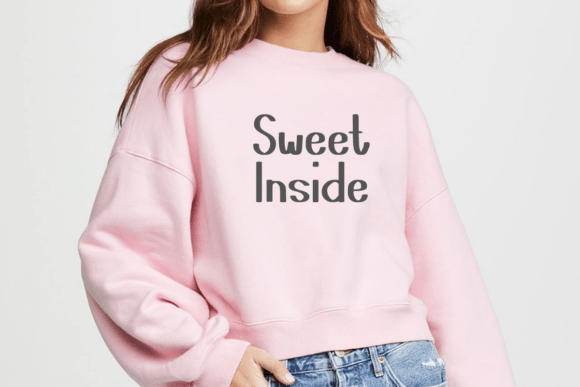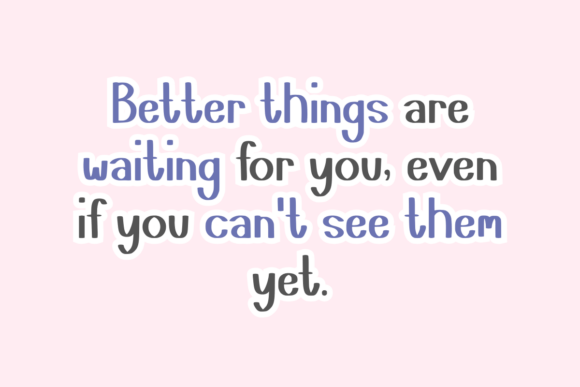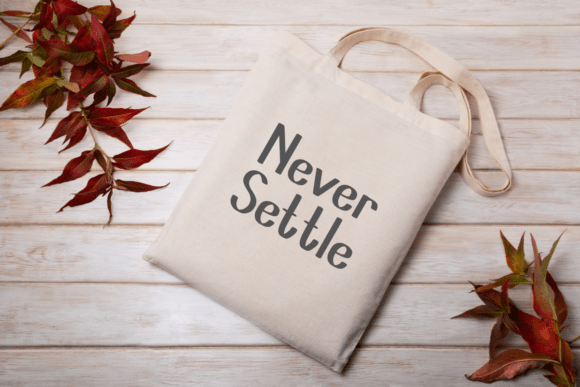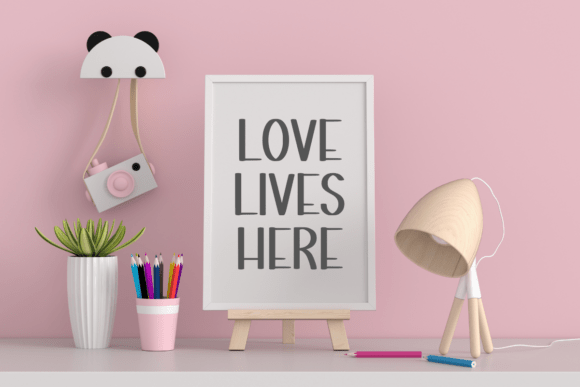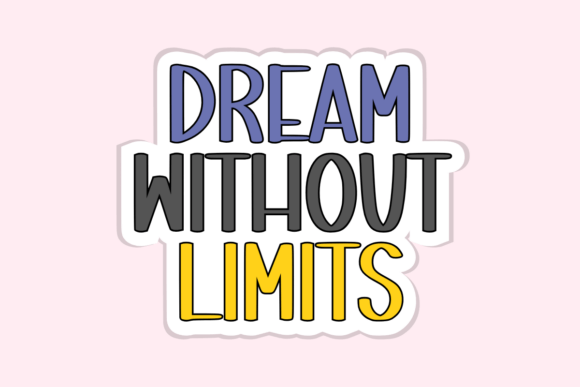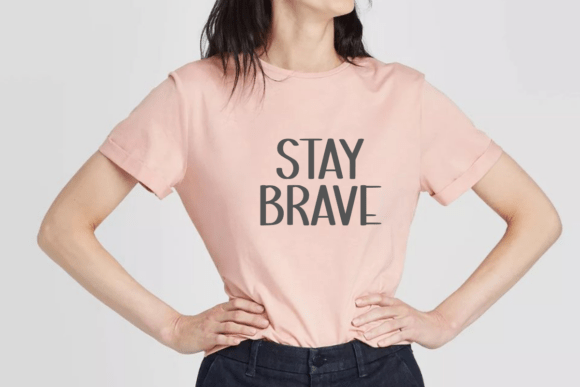
Introducing Classic Stories Font: The Perfect Handwritten Style for Crafty Projects
Are you a crafter, designer, or DIY enthusiast looking for a font that can add a personal touch to your projects? Look no further than Classic Stories Font, a charming sans serif handwriting font that exudes a soft, friendly, and natural look. This adorable font is designed to bring a warm, handcrafted feeling to a wide range of projects, from crafty planners and stickers to kids’ worksheets and classroom printables.
The Characteristics of Classic Stories Font
Classic Stories Font boasts simple strokes and smooth curves, making it an ideal choice for crafters who love working with cutting machines like Cricut and Silhouette. The font’s clean and uncomplicated design ensures that it cuts beautifully, allowing you to create intricate designs and shapes with ease. Whether you’re a seasoned crafter or a beginner, Classic Stories Font is perfect for adding a touch of personality to your projects.
Ideal Uses for Classic Stories Font
Classic Stories Font is incredibly versatile and can be used for a wide range of projects, including:
- Quotes and Greeting Cards: Add a personal touch to your inspirational quotes and greeting cards with this charming font.
- Kids’ Labels and Worksheets: Create engaging and fun learning materials for kids, including labels, worksheets, and coloring pages.
- Bullet Journals and Scrapbooks: Use Classic Stories Font to add a touch of whimsy to your bullet journals and scrapbooks.
- Playful Graphic Projects: This font is perfect for creating playful and eye-catching graphics, including stickers, planner inserts, and DIY designs.
Why Classic Stories Font Stands Out
So, what sets Classic Stories Font apart from other fonts? Here are just a few reasons why this font has become a favorite among crafters and designers:
- Soft and Friendly Look: Classic Stories Font has a soft, friendly look that is sure to appeal to crafters and designers who love working with handwritten styles.
- Easy to Cut: The font’s simple strokes and smooth curves make it easy to cut using Cricut and Silhouette machines.
- Perfect for Crafting Moms: This font is ideal for crafting moms who love creating adorable handwritten styles for their kids’ projects and activities.
Tips for Using Classic Stories Font
Here are a few tips for getting the most out of Classic Stories Font:
- Experiment with Colors: Try pairing Classic Stories Font with different colors and textures to add depth and interest to your projects.
- Mix and Match with Other Fonts: Combine Classic Stories Font with other fonts to create unique and eye-catching designs.
- Use for Digital and Print Projects: This font is perfect for both digital and print projects, including social media graphics, flyers, and brochures.
Classic Stories Font is a charming and versatile font that is perfect for crafters, designers, and DIY enthusiasts. With its soft, friendly look and easy-to-cut design, this font is ideal for a wide range of projects, from crafty planners and stickers to kids’ worksheets and classroom printables. Whether you’re a seasoned crafter or a beginner, Classic Stories Font is sure to become a favorite in your design arsenal.